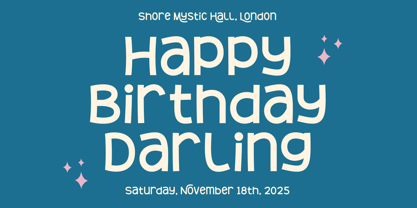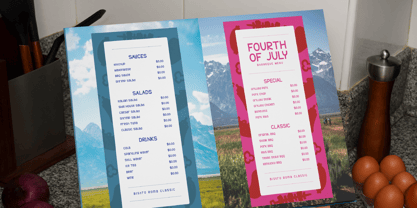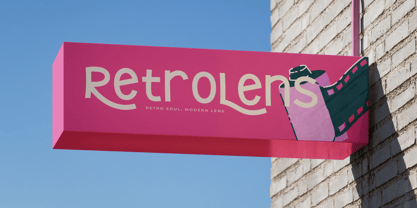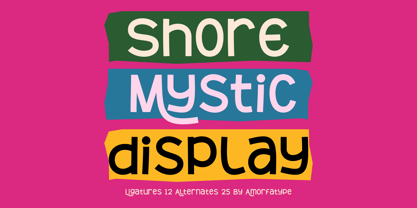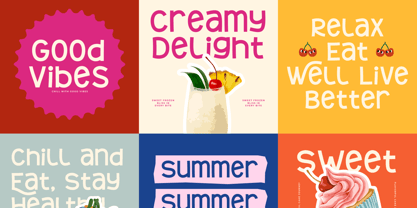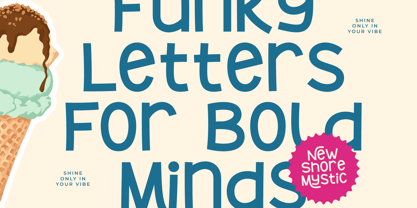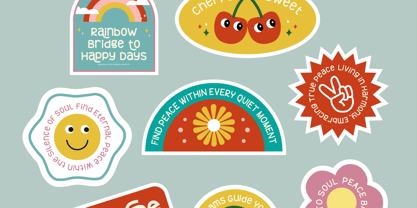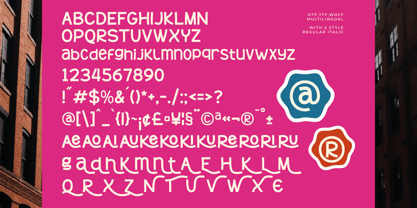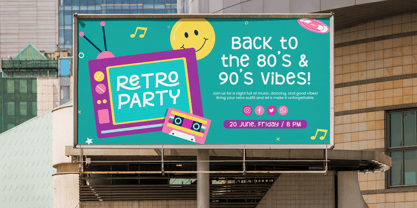
Shore Mystic
by Amorfa Type
The Shore Mystic Font Family was designed by Shiddiq Roihan and published by Amorfa Type. Shore Mystic contains 2 styles and family package options.
Shore Mystic is a playful and quirky display sans serif typeface designed to bring fun, energy, and uniqueness to your creative projects. With its irregular strokes, expressive curves, and bold personality, Shore Mystic radiates a handcrafted charm that instantly captures attention. This font balances creativity with readability, making it a standout choice for designs that demand both character and clarity.